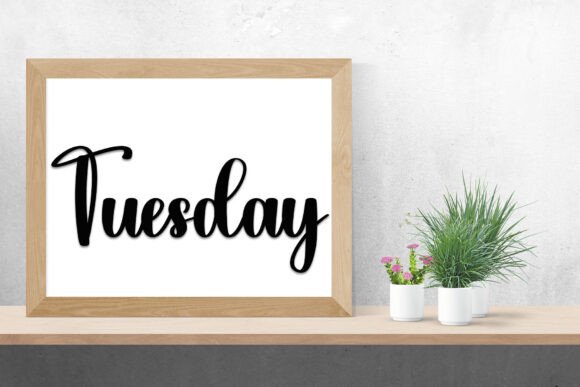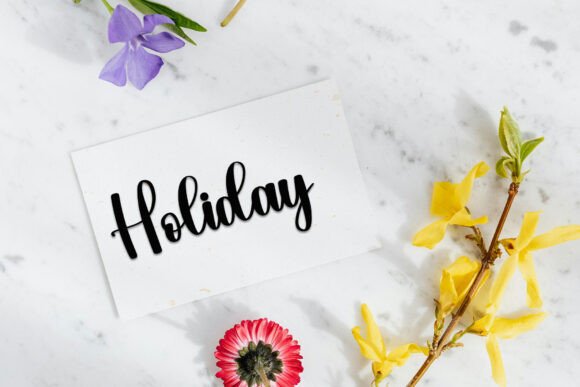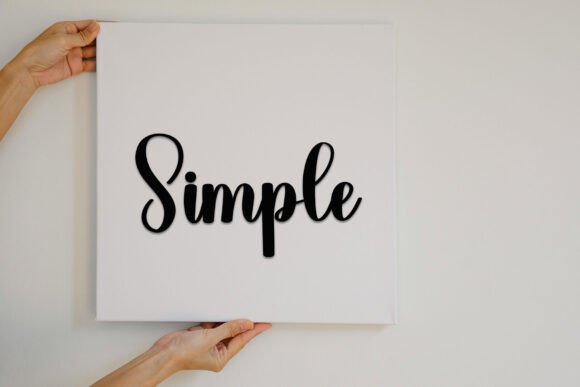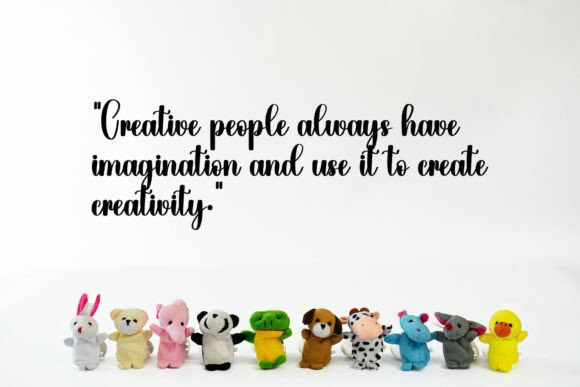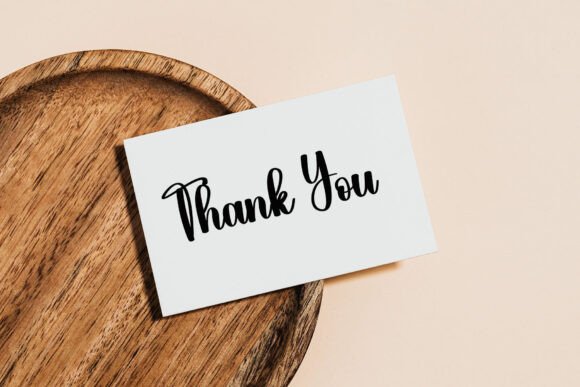
Heart Font: The Elegant and Timeless Choice for Your Designs
Are you looking for a font that adds a touch of elegance and sophistication to your designs? Look no further than Heart Font, a beautiful handwritten font that is sure to capture your heart. With its incredibly distinct and timeless style, Heart Font is perfect for designers and crafters who want to create spectacular designs that stand out from the crowd.
The Characteristics of Heart Font
Heart Font is a neat and beautiful handwritten font that is described by an elegant touch. Its unique characteristics make it perfect for a wide range of design projects, from romantic and feminine designs to more formal and elegant ones. The font features:
- Elegant and refined lines: Heart Font has smooth and flowing lines that give it a sophisticated and luxurious feel.
- Unique letterforms: Each letter in Heart Font has a distinct and unique shape, making it perfect for designs that require a personal touch.
- Timeless style: Heart Font has a classic and timeless style that never goes out of fashion, making it a great investment for designers and crafters.
Why Use Heart Font?
There are many reasons why Heart Font is a great choice for designers and crafters. Here are just a few:
- Perfect for romantic designs: Heart Font is perfect for designs that require a romantic and feminine touch, such as wedding invitations, Valentine’s Day cards, and more.
- Great for branding and packaging: Heart Font’s elegant and sophisticated style makes it perfect for branding and packaging designs that require a luxurious feel.
- Easy to read: Despite its elegant and refined lines, Heart Font is easy to read, making it perfect for designs that require a clear and concise message.
How to Use Heart Font
Using Heart Font is easy and straightforward. Here are a few tips to get you started:
- Pair it with other fonts: Heart Font looks great when paired with other fonts, such as sans-serif fonts or script fonts.
- Experiment with colors: Heart Font looks great in a variety of colors, from bold and bright to soft and pastel.
- Use it for headings and titles: Heart Font is perfect for headings and titles, where its elegant and refined lines can really shine.
Design Ideas with Heart Font
Here are a few design ideas to get you started with Heart Font:
- Wedding invitations: Use Heart Font to create beautiful and elegant wedding invitations that set the tone for the big day.
- Valentine’s Day cards: Use Heart Font to create romantic and feminine Valentine’s Day cards that are sure to impress.
- Branding and packaging: Use Heart Font to create luxurious and sophisticated branding and packaging designs that stand out from the crowd.
In conclusion, Heart Font is a beautiful and elegant handwritten font that is perfect for designers and crafters who want to create spectacular designs. With its incredibly distinct and timeless style, Heart Font is sure to capture your heart and inspire your creativity. So why not give it a try and see what amazing designs you can create?